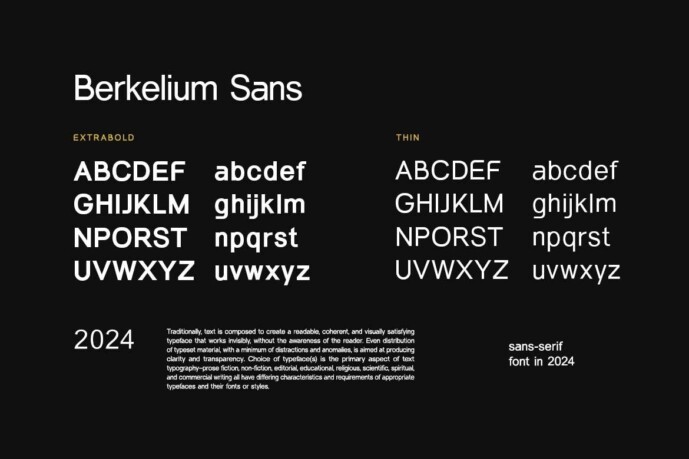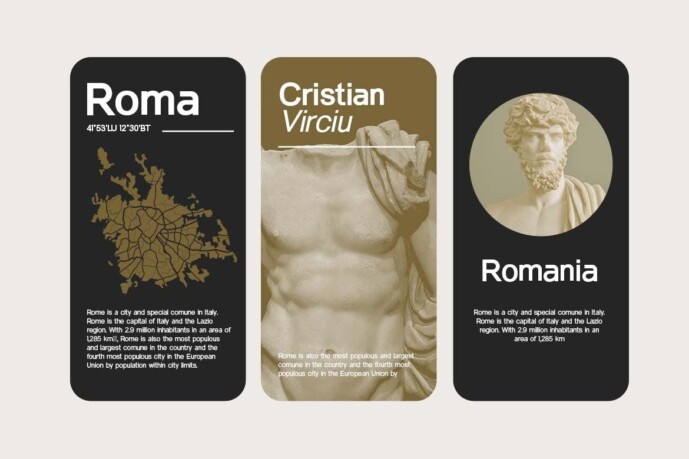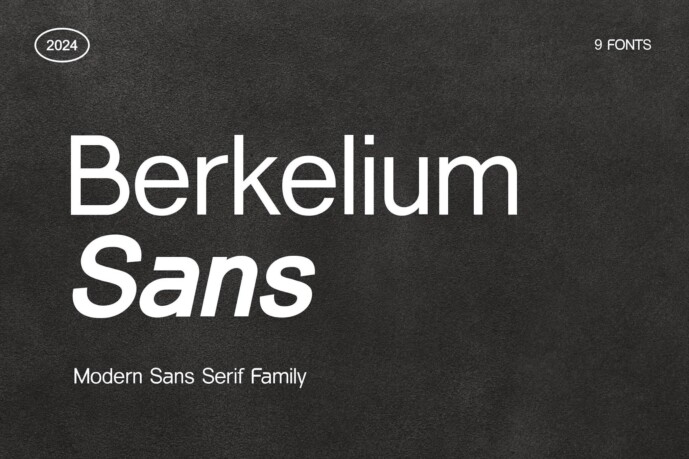
Berkelium Sans Font Family
Berkelium Sans Font Family, The family includes 9 different weights. A modern sans serif font that gives an impression of beauty, class, elegance and modernity. This font is perfect for a wide variety of projects, such as signature, stationery, logo, wedding, typographic quotes, magazine or book cover, website header, clothing, etc. branding, packaging design, etc. Also for fashion related branding or editorial design and displays both masculine and feminine qualities